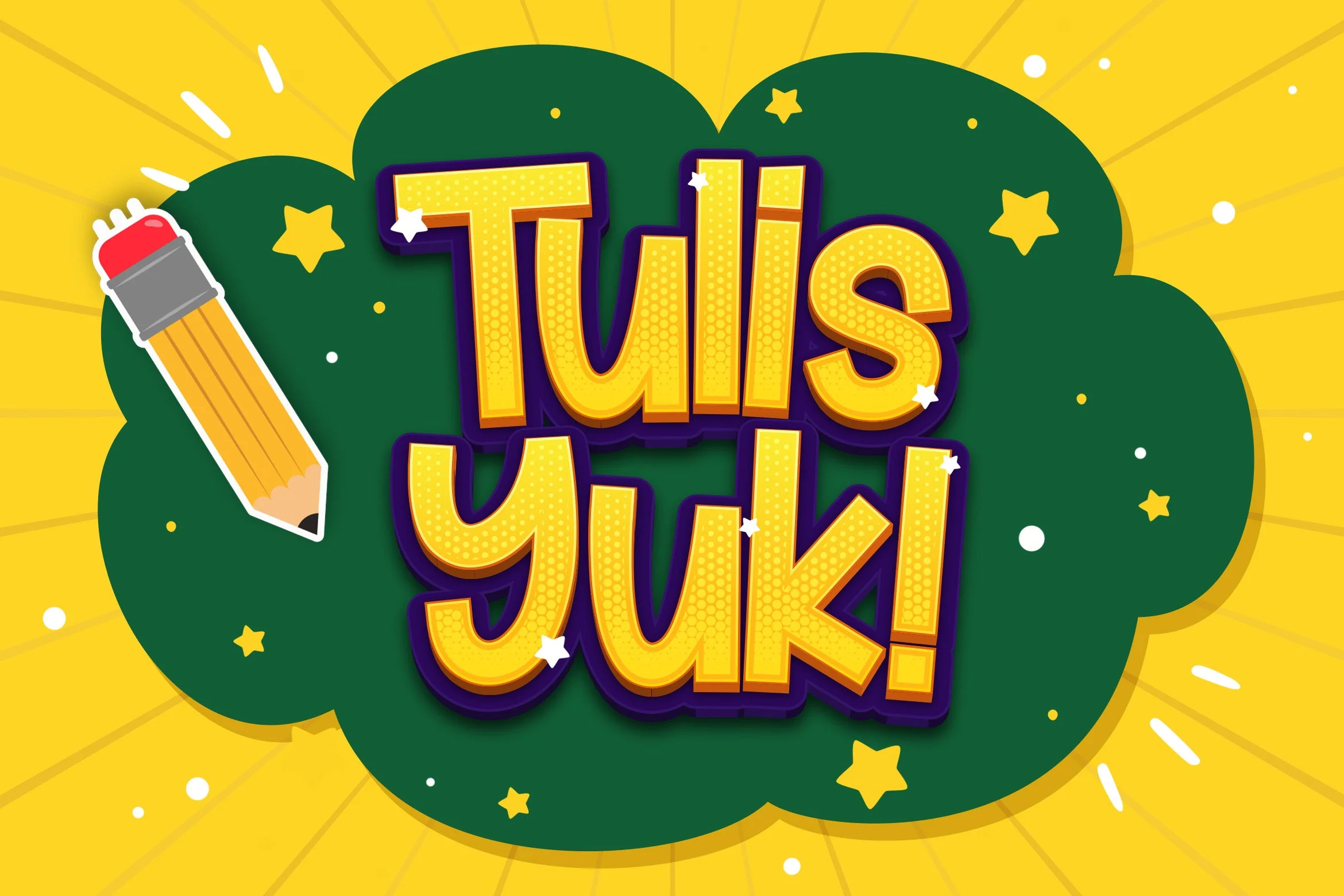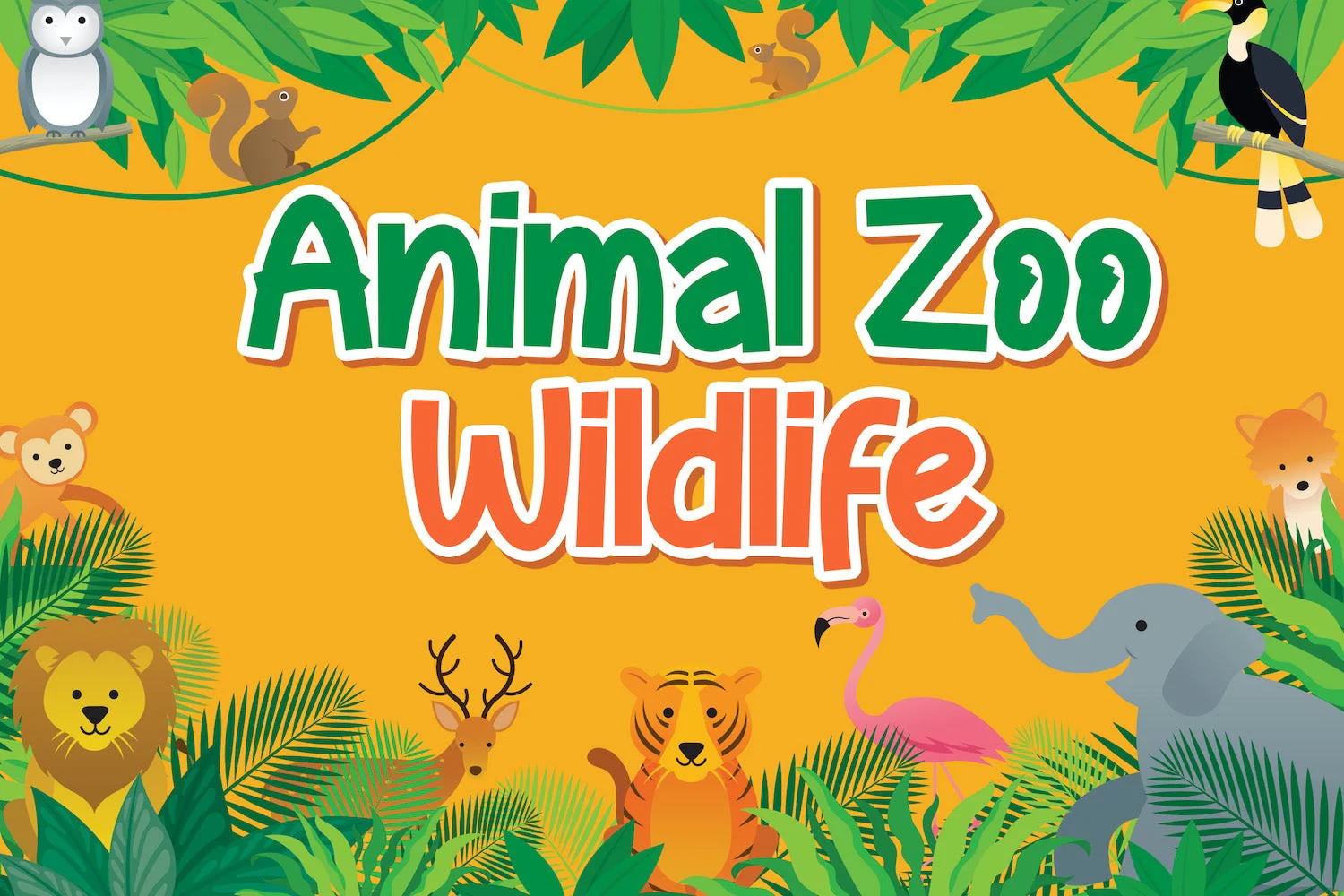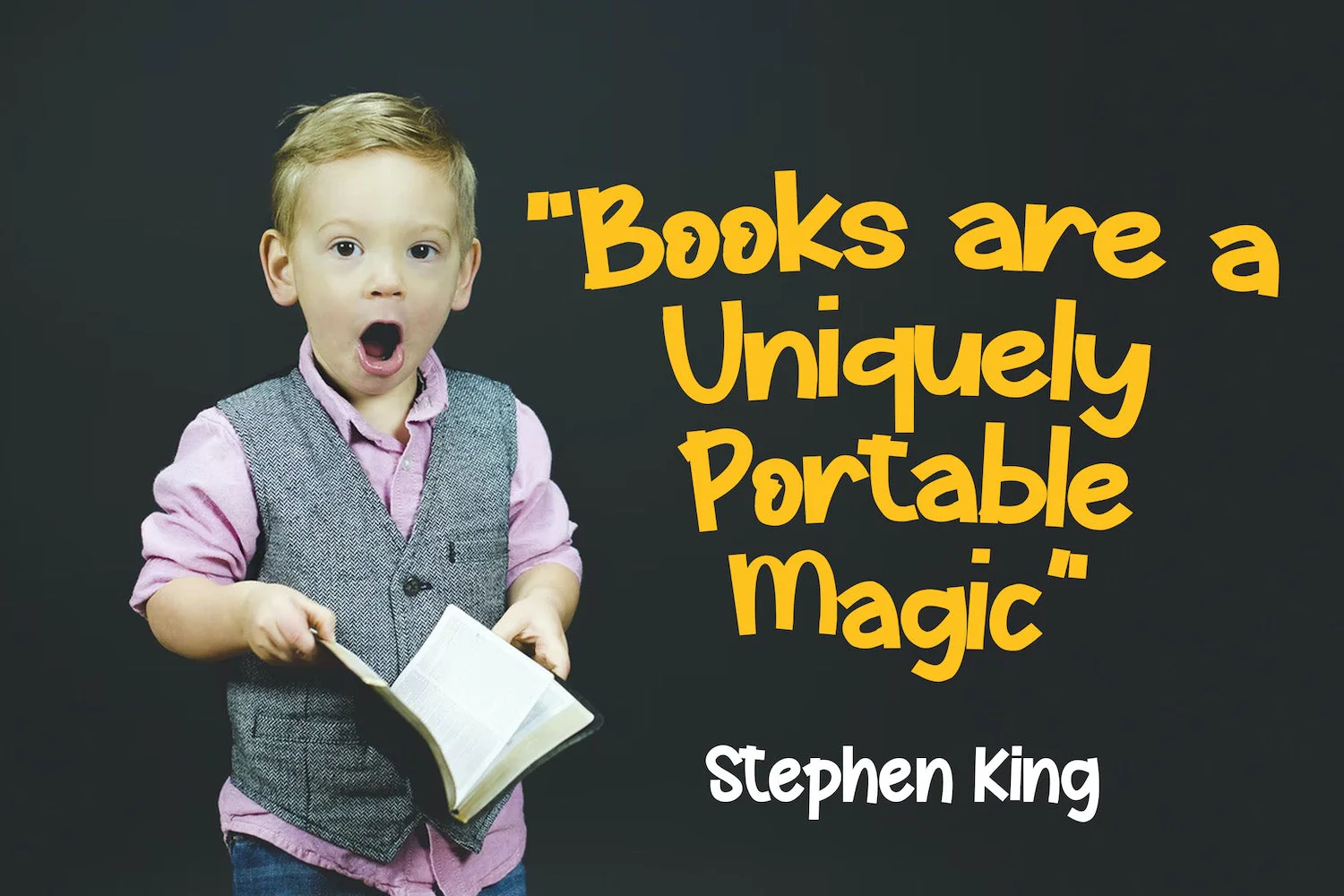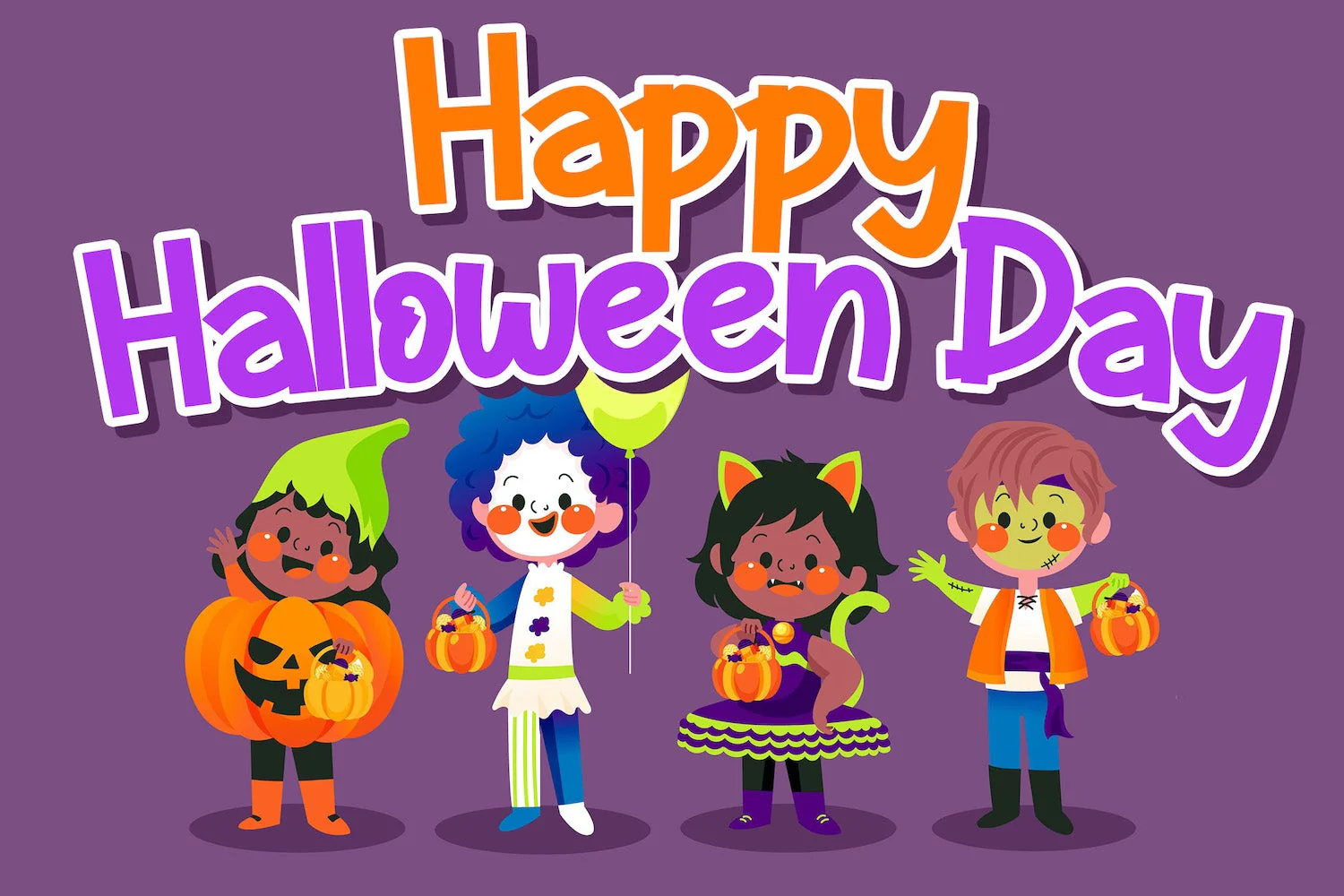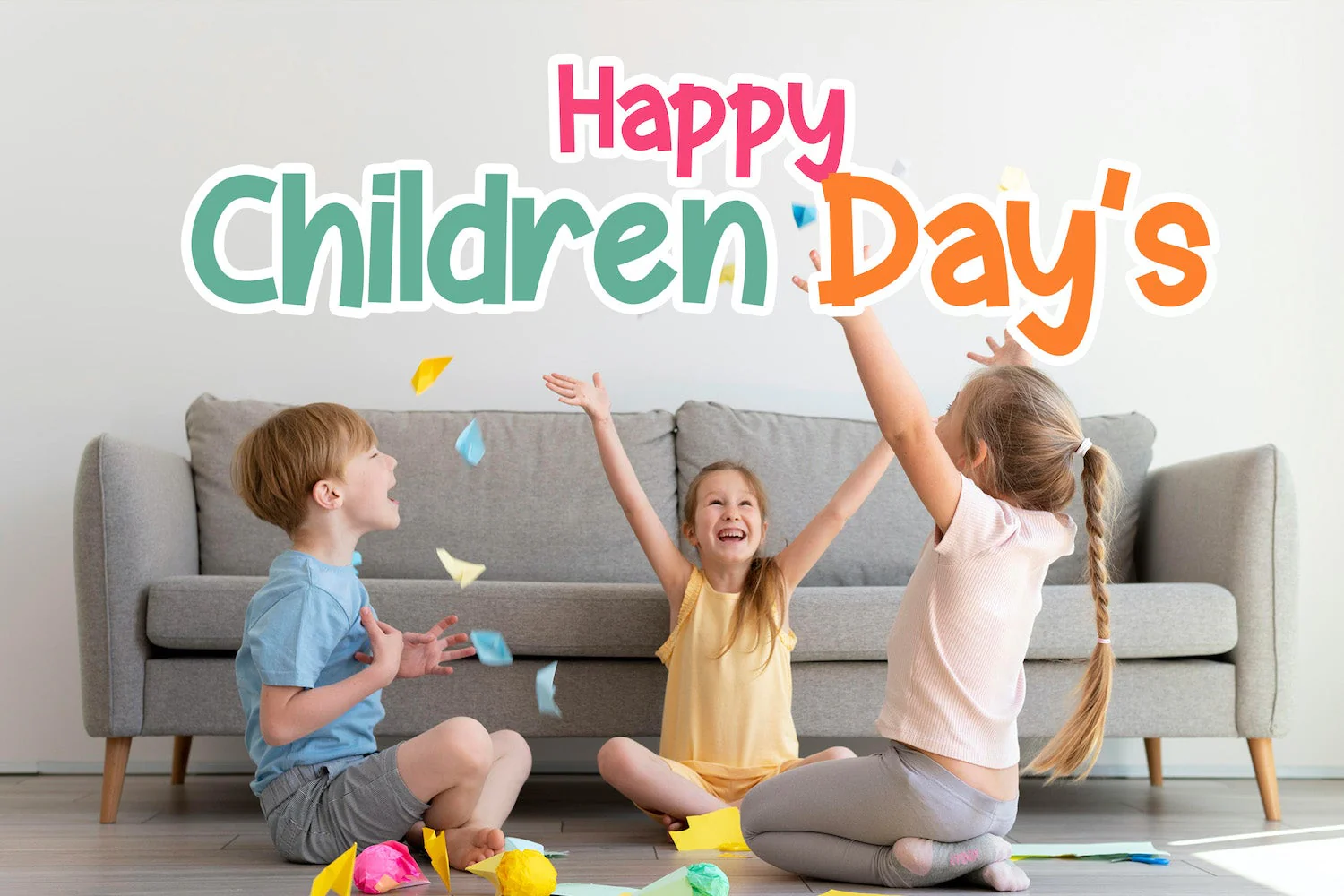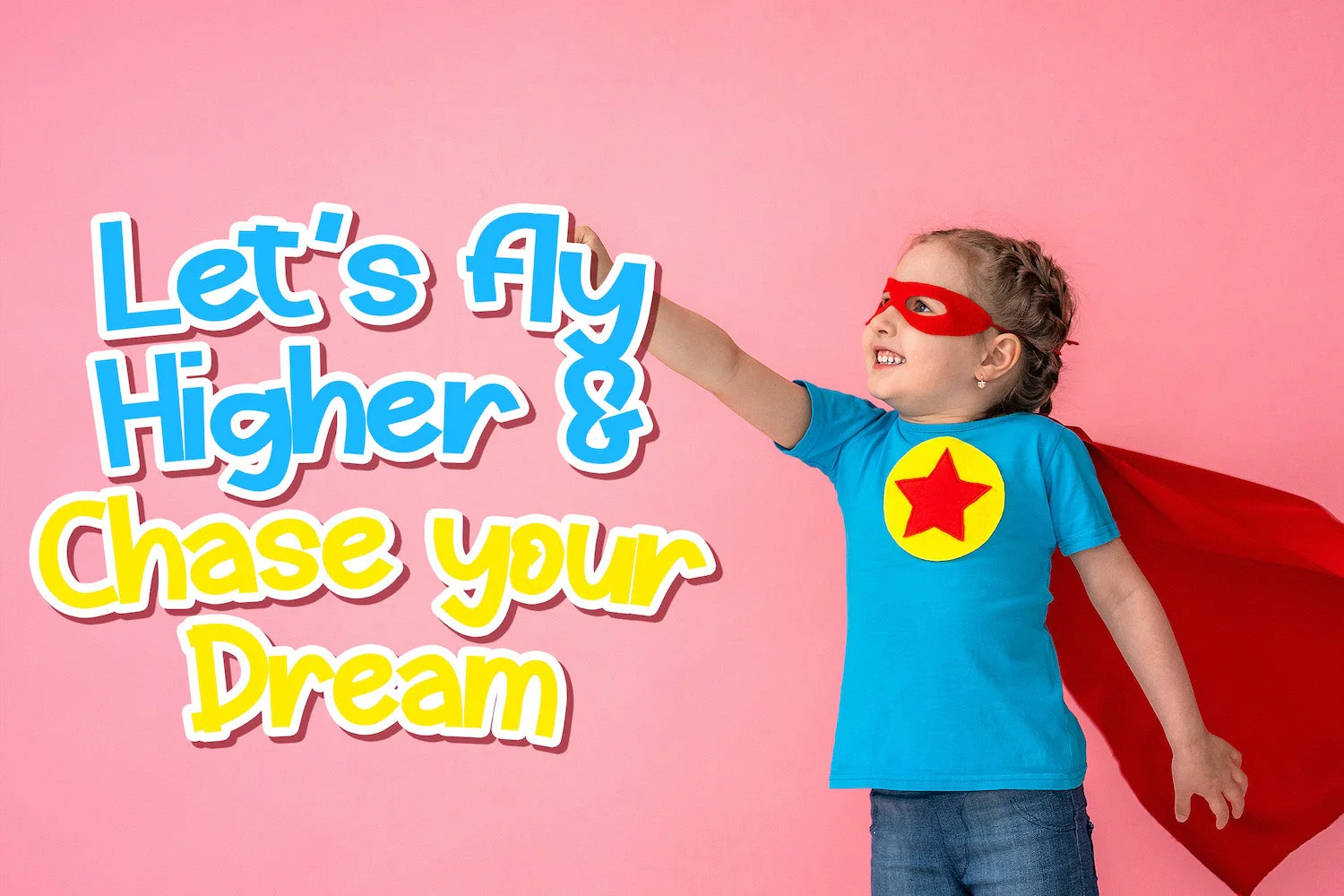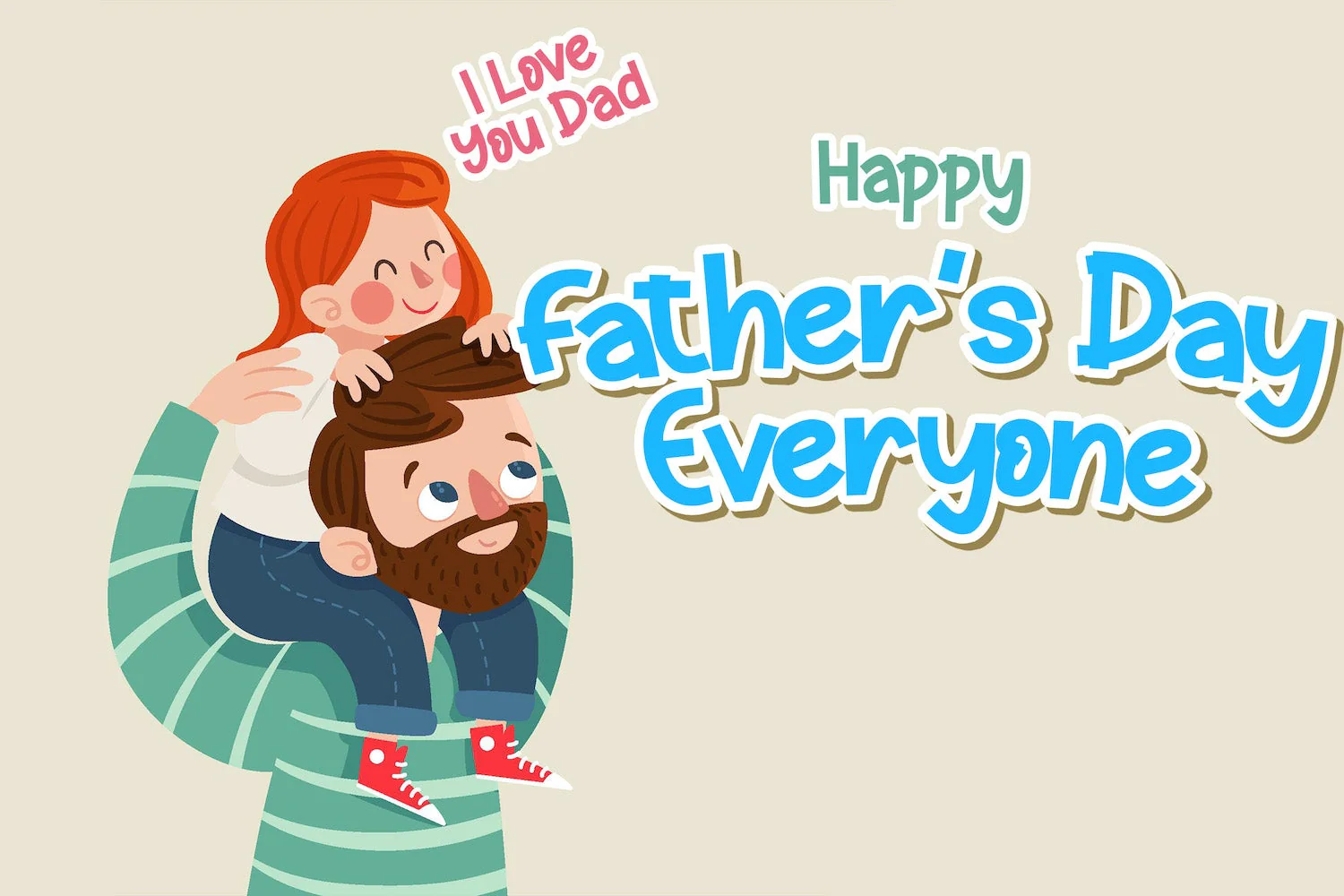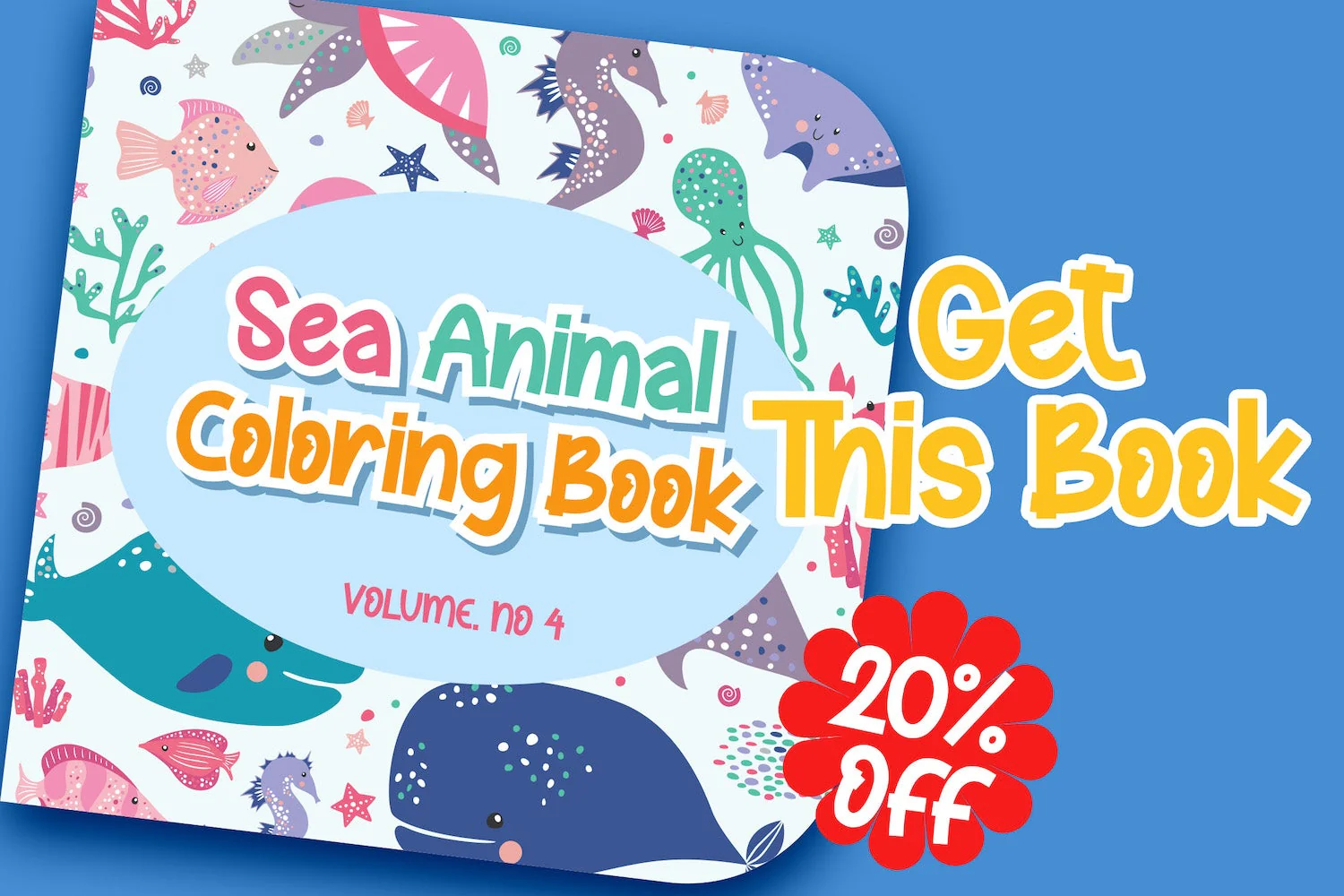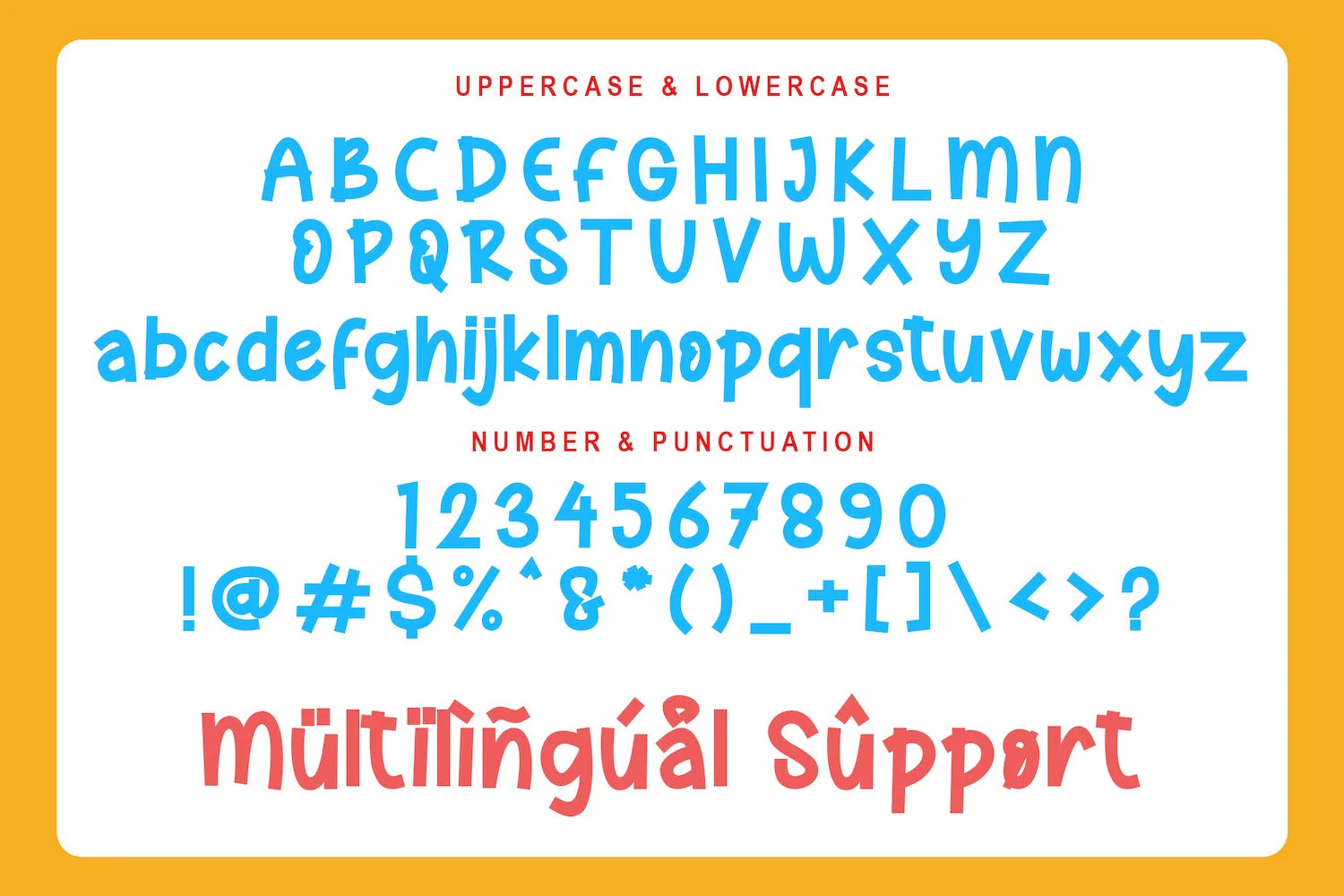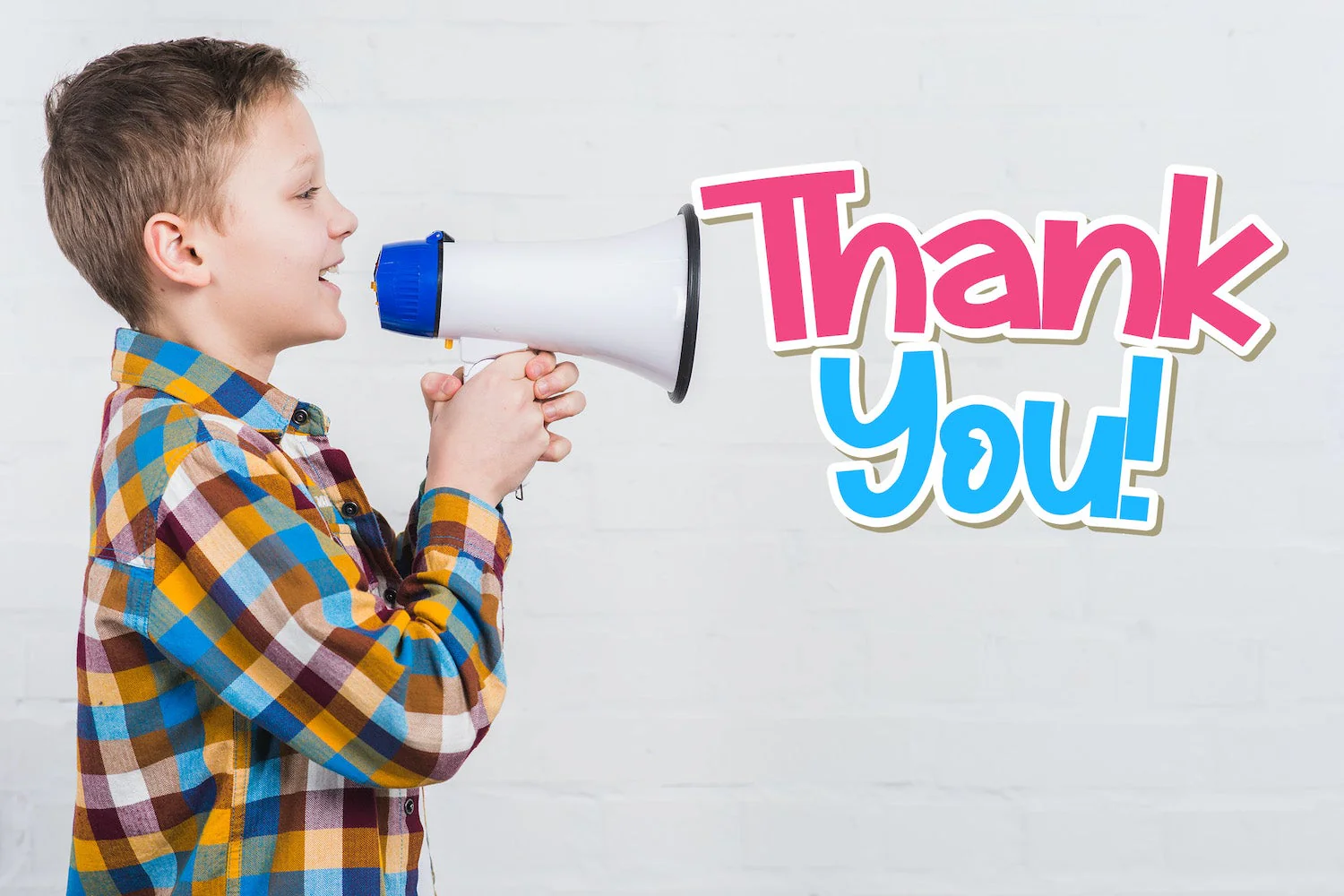
Tulis Yuk - Playful Display Font
Introducing Tulis Yuk - Playful Display Font
Tulis Yuk is a fun display font. Playful and fresh, this font will be a hit for each of your children or school projects!